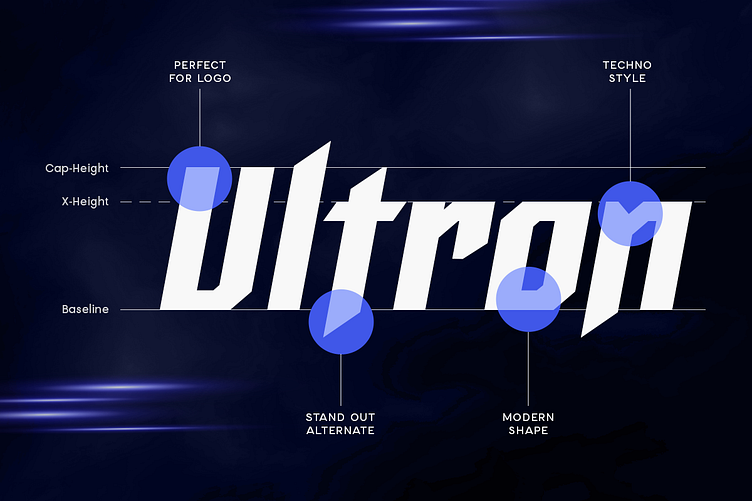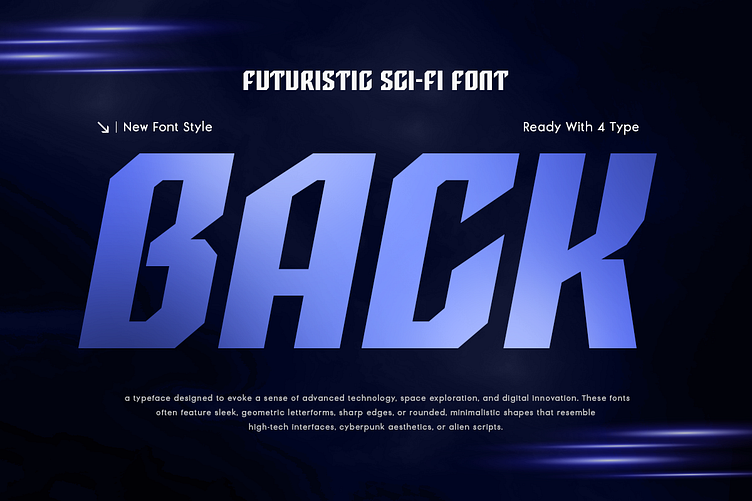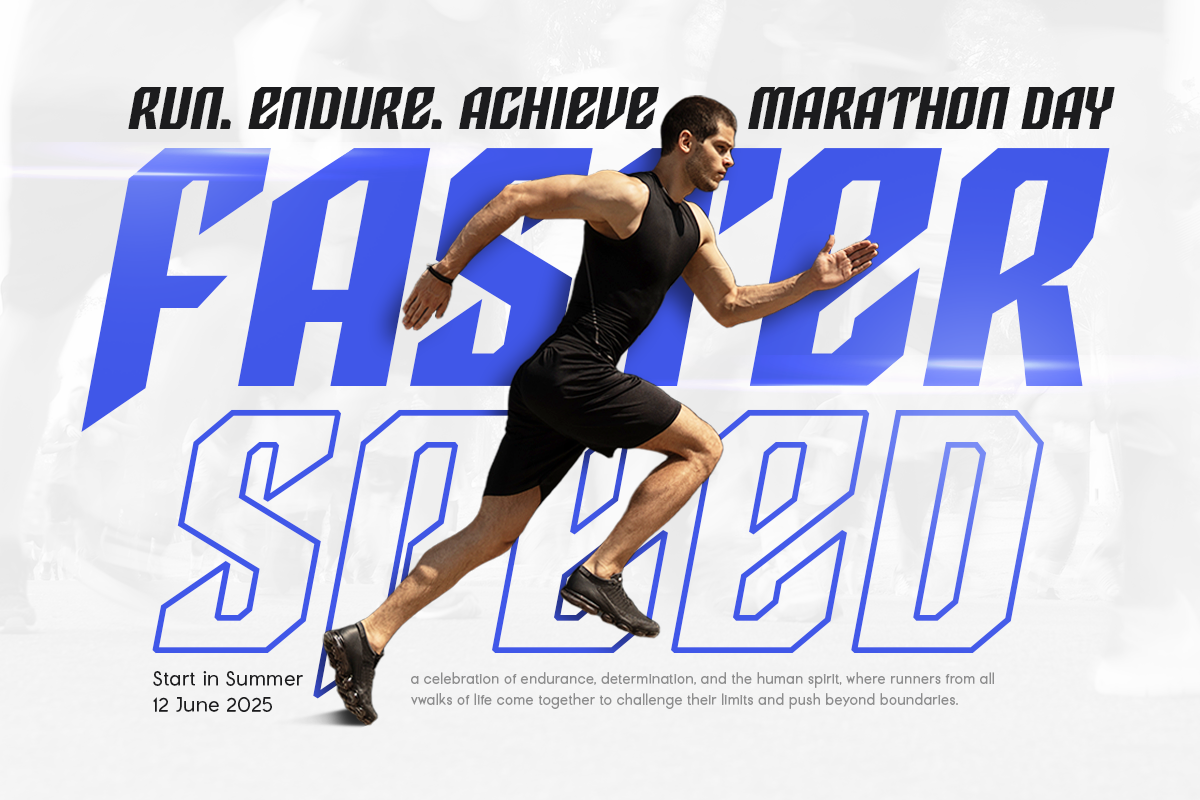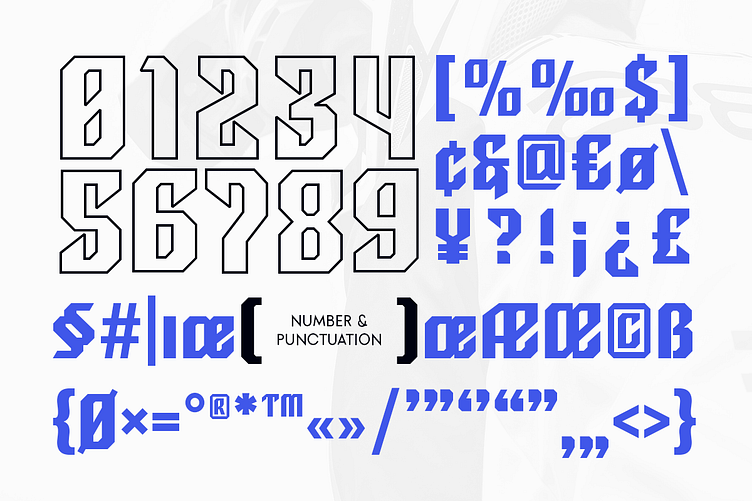
Back – Futuristic Sci-Fi Font for Bold, Fast-Moving Brands⚡
Back - Futuristic Sci-Fi Font
Back didn’t get built after some neat meeting or "brand strategy session."
It started because we got bored😐.
Bored of fonts that looked like they still paid rent in the 90s.
We wanted something faster, sharper, louder — a font that could punch through the noise without asking for permission.
Back is built for projects that don't tiptoe around.
It’s wide. It’s fast. It cuts through whatever boring stuff is sitting next to it and says, “Nope, we're doing it our way.”
No random soft swirls. No fragile, artsy curls. Just pure, unapologetic sci-fi muscle you can actually use.
If you’re making a tech logo, game launch, new app, esports brand, or some futuristic thing that doesn’t fit into a neat little box — Back is what you want in your corner.
Where Back fits best:
✅ Sci-fi movie posters that don’t whisper
✅ Gaming brands that need a real edge
✅ Tech startups trying to look like they’re from five years ahead
✅ Apps that move fast and break everything
✅ Bold digital ads, UI layouts, and anything that’s not afraid of a little noise
How Back feels to use:
It’s like switching on a light 💡 in a dark room where everyone else is still stumbling around. One second you’re building, next second your design just snaps awake.